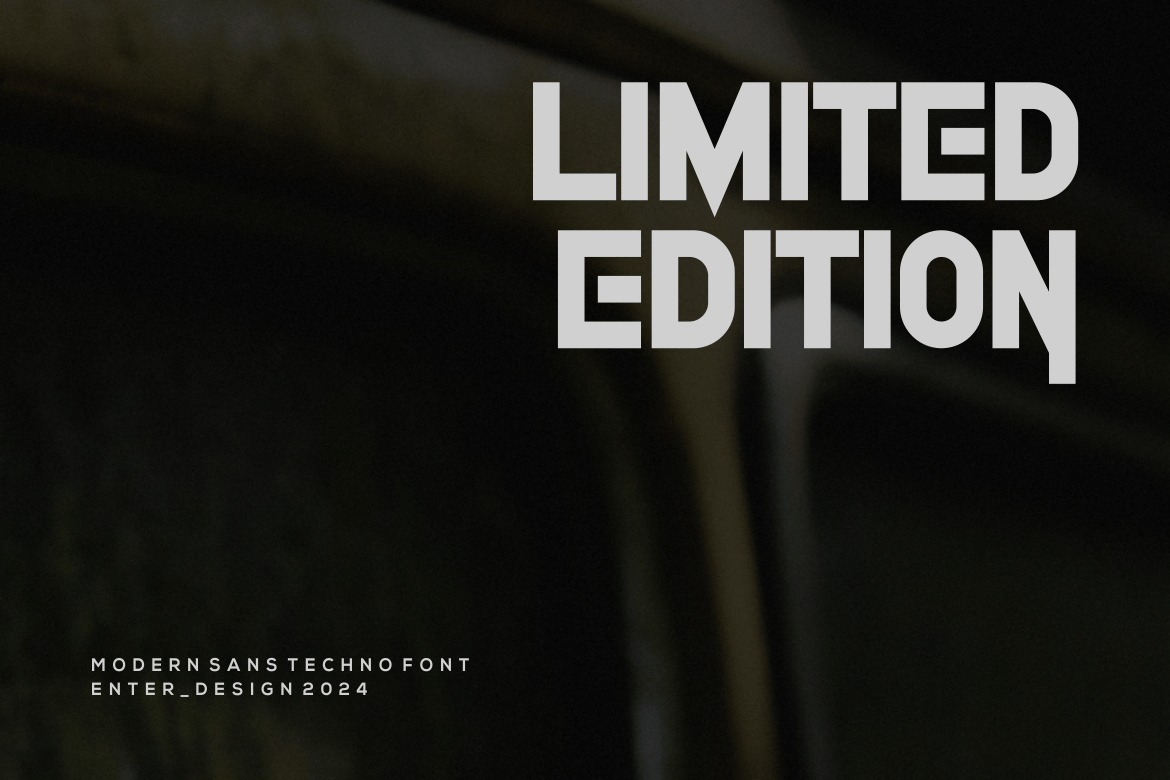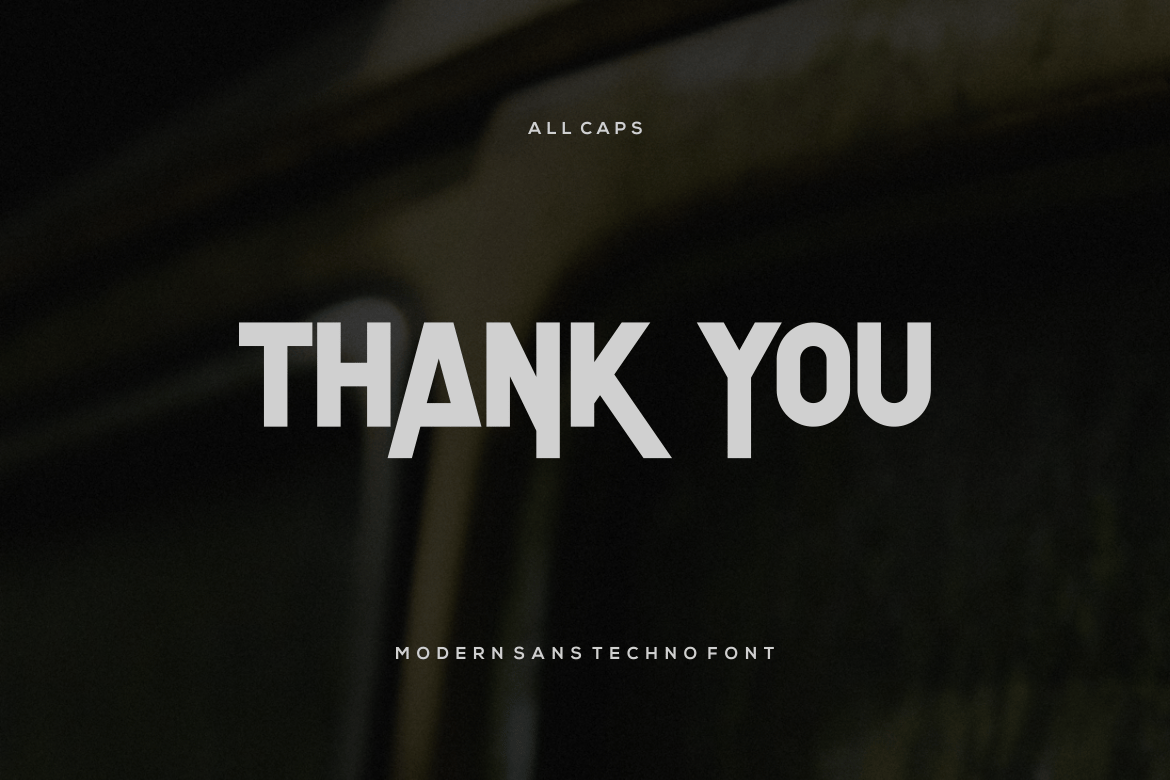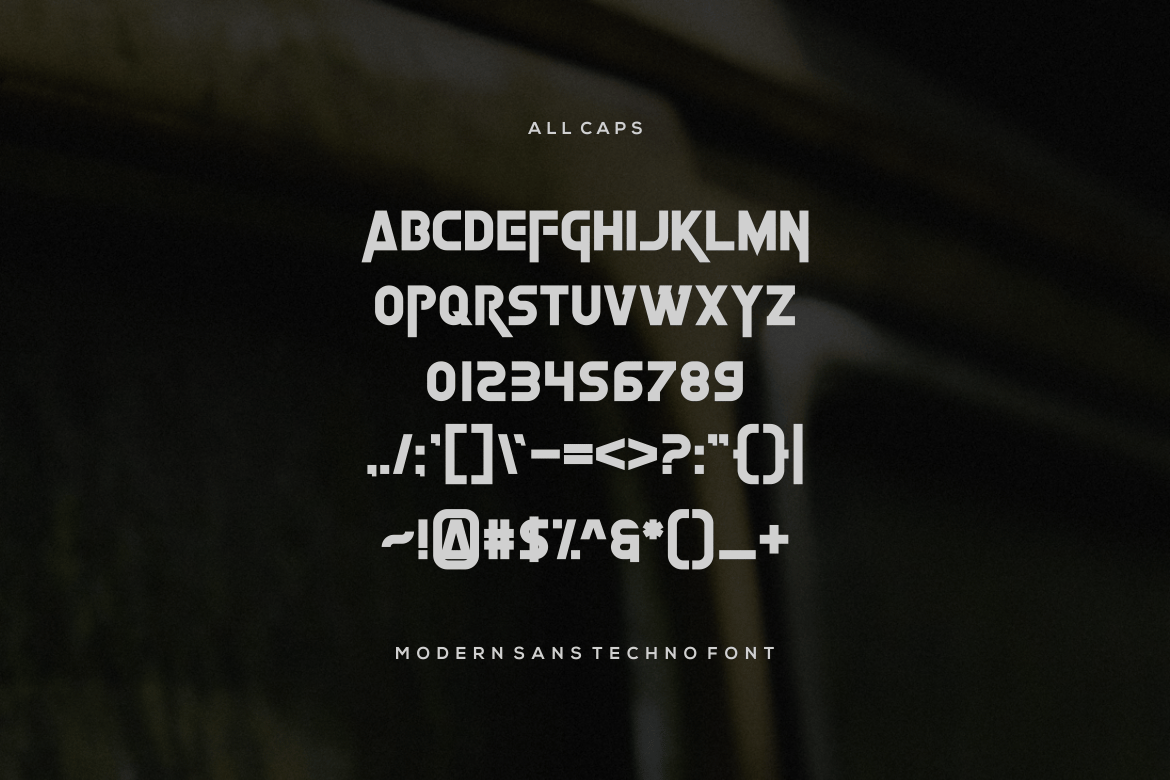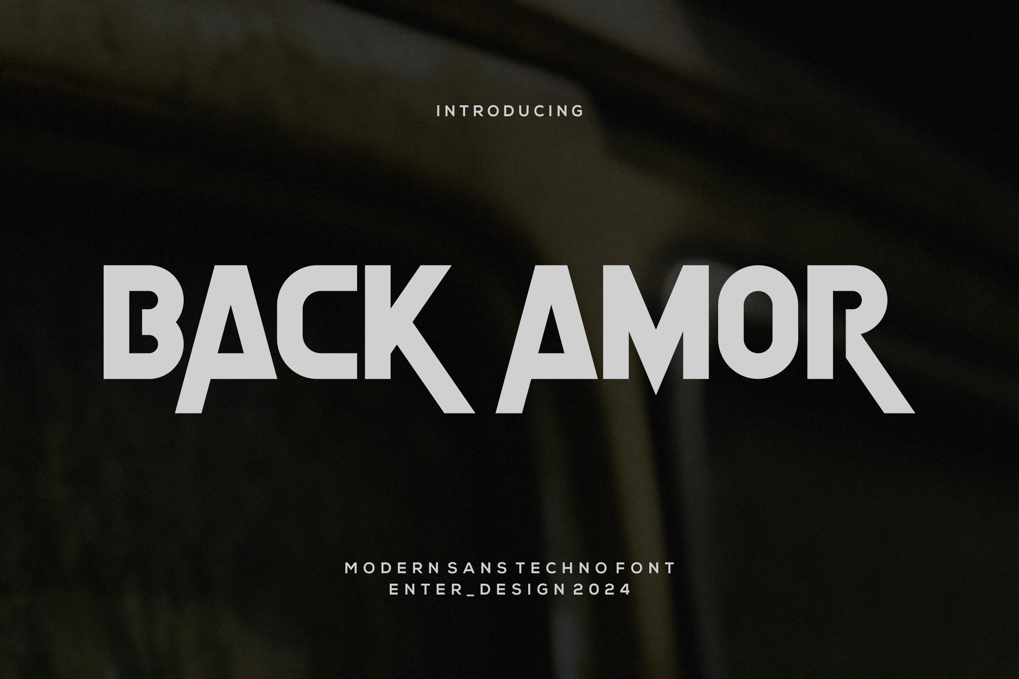
Back Amor Font
Back Amor Font – Modern Font is a bold and authentic display font. The font is suitable for any branding project like logo, esport, and many more. outstanding in a wide range of contexts.